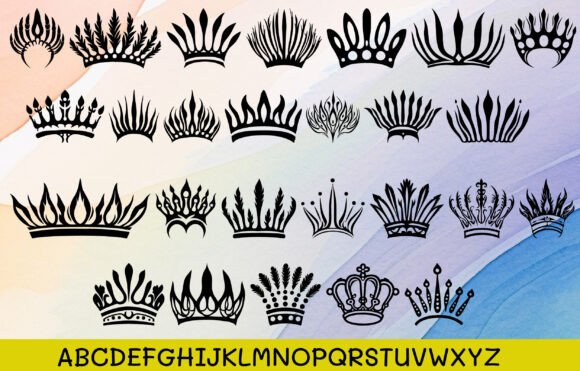
What is Crown Samoan Font?
Crown Samoan Font is a carefully crafted dingbat font that showcases 26 exquisite crown designs, each corresponding to a letter from A to Z. Inspired by the rich cultural heritage of Polynesia, this font is perfect for designers and crafters seeking to infuse their projects with a touch of sophistication and exoticism.
Key Features of Crown Samoan Font
- 26 Unique Crown Designs: Each letter from A to Z features a distinct crown design, allowing you to create stunning text-based designs and patterns.
- Polynesian-Inspired: The font’s design is deeply rooted in Polynesian culture, making it perfect for projects that require an elegant and exotic touch.
Crown Samoan Font is a beautiful and versatile dingbat font that offers a unique blend of elegance and cultural flair. With its 26 stunning crown designs, OTF and TTF file formats, and Polynesian-inspired aesthetic, this font is perfect for designers and crafters looking to elevate their projects and add a touch of sophistication. Whether you’re working on a crafting, graphic design, or wedding project, Crown Samoan Font is sure to impress.